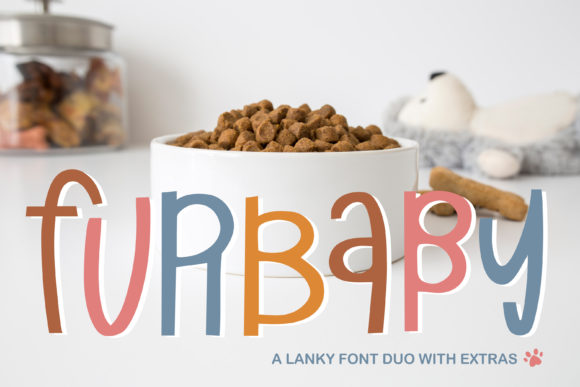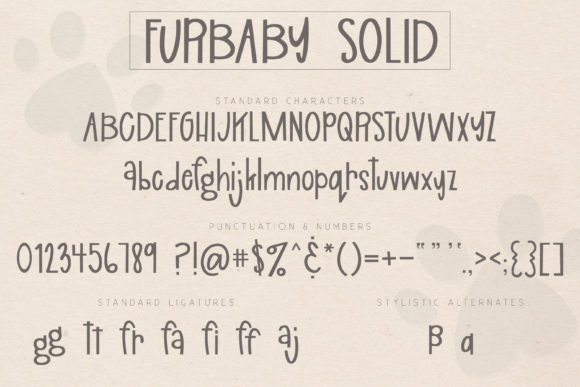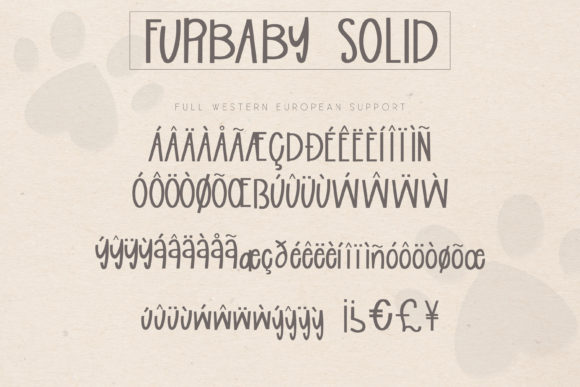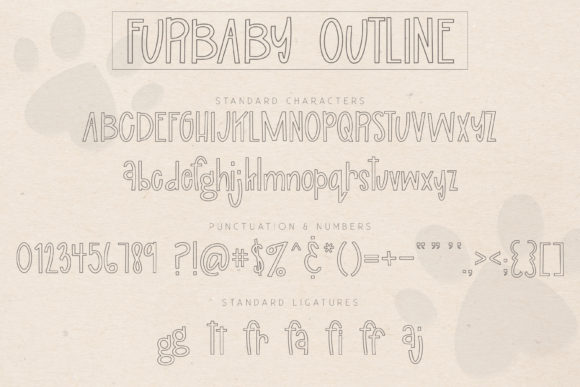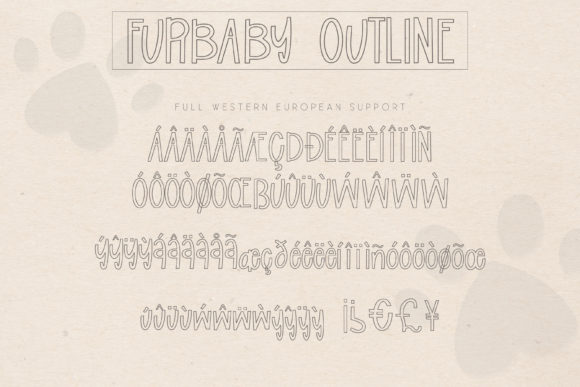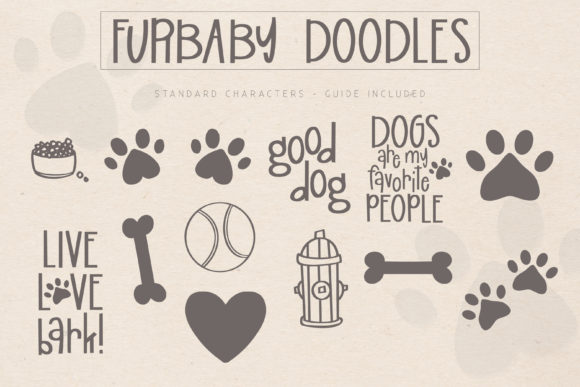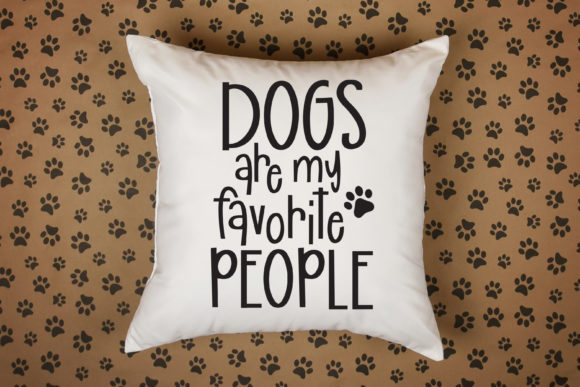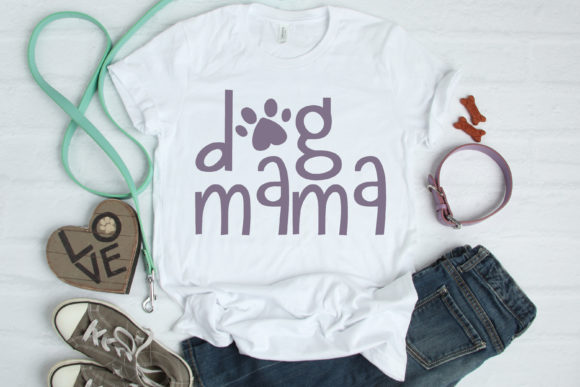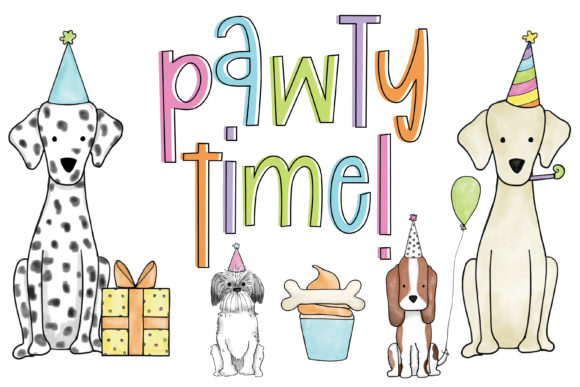
Furbaby Font
About Furbaby Font
Furbaby is a quirky handwritten font. It’s perfect for all fun crafting projects and includes lots of puppy-themed extras. This font duo includes a quirky solid and outlined version – it’s great for layering!